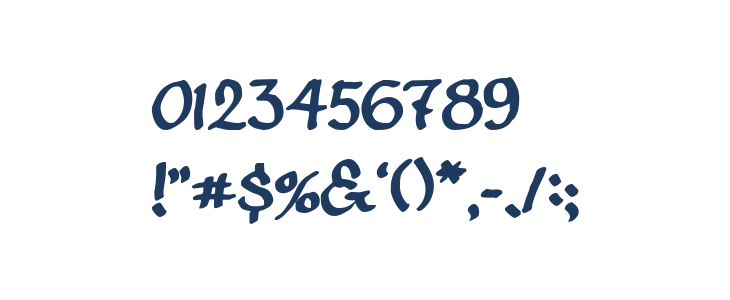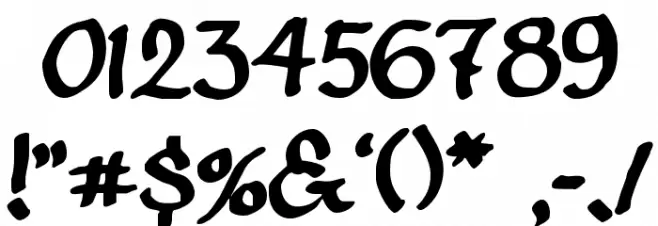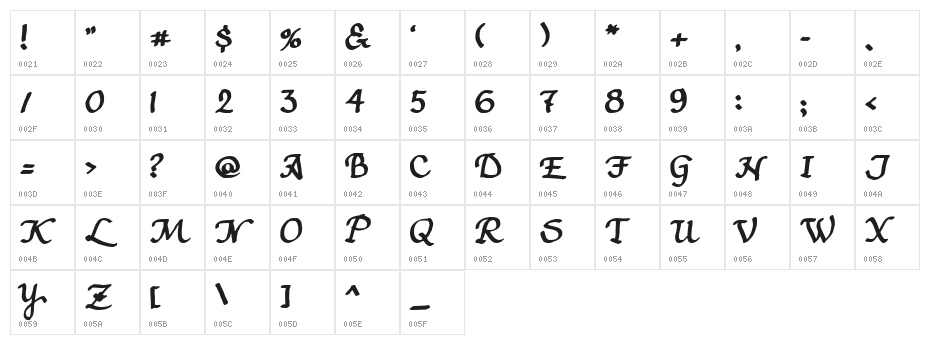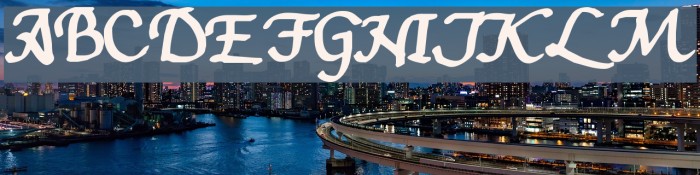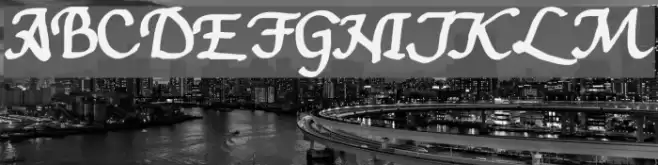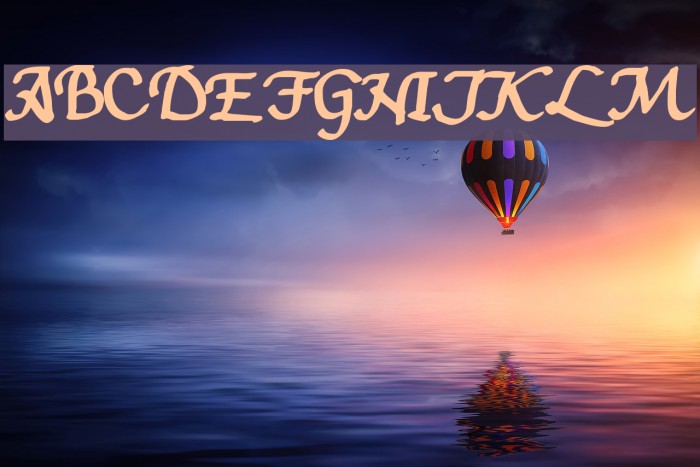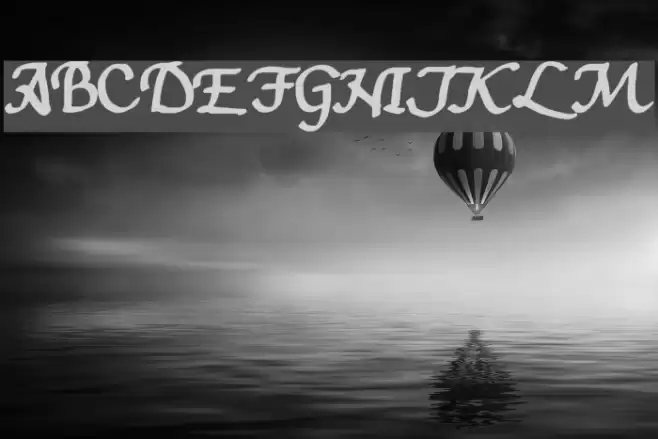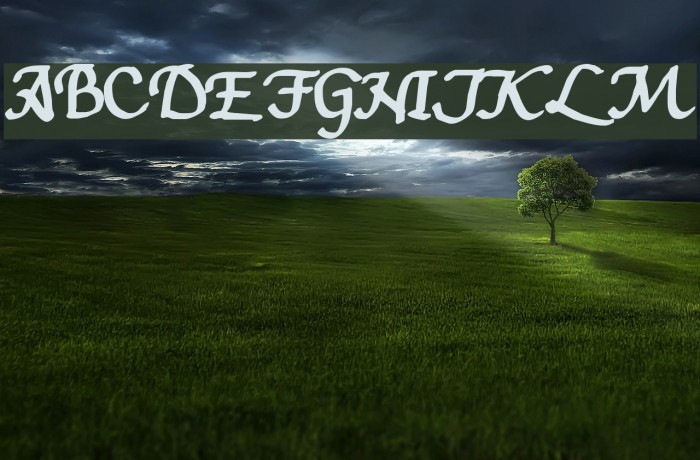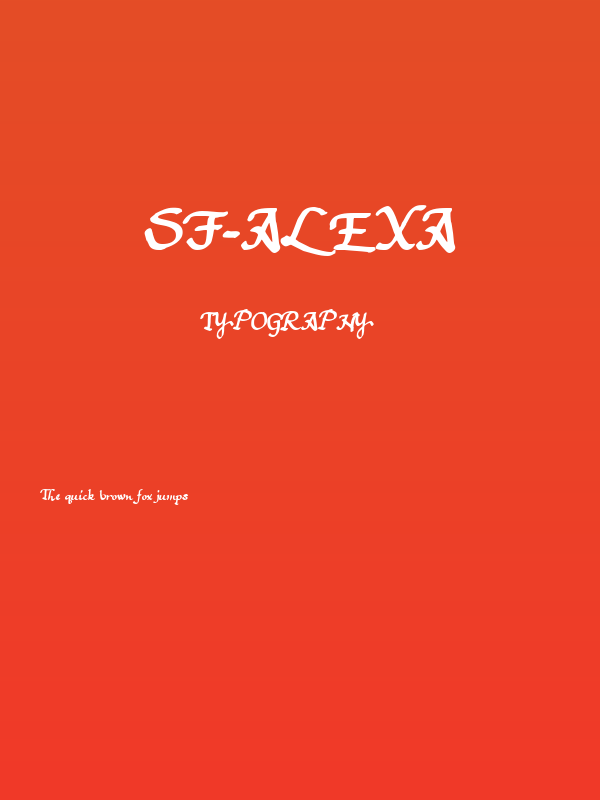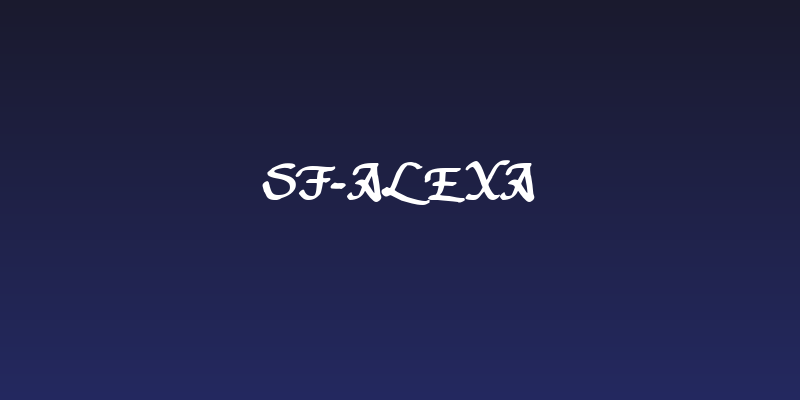
SF-Alexa Font
SF-Alexa Description
This font exhibits a bold and expressive style with a handwritten, cursive appearance. The letters are fluid and connected, giving a sense of movement and elegance. The uppercase characters maintain a consistent height, while the lowercase letters vary in size, adding a dynamic quality. The numbers are equally stylized, with a playful yet sophisticated look. Special characters are integrated seamlessly, maintaining the overall aesthetic. The strokes are thick and prominent, ensuring high visibility and impact. This font is ideal for projects that require a personal touch or artistic flair.
| Proposed Projects | Ideal for greeting cards, invitations, branding, and artistic projects requiring a personal touch. |